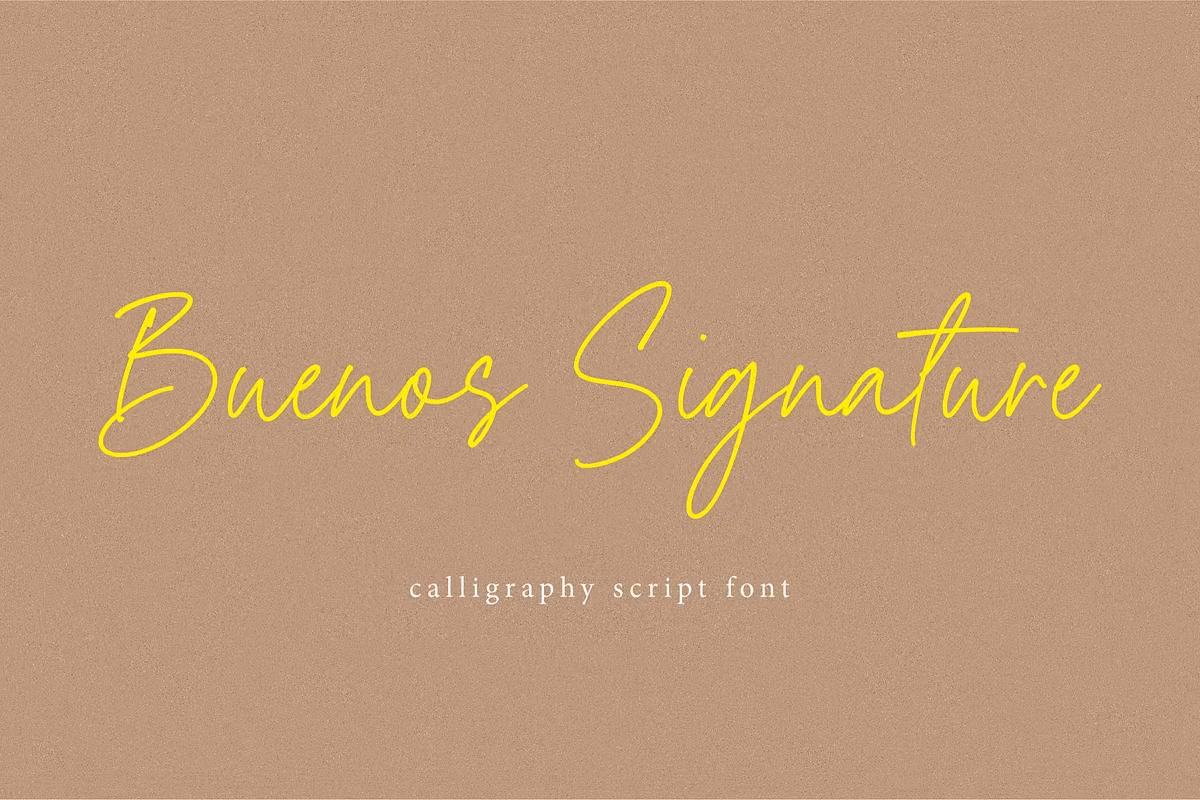
Buenos Signature Font Free Download is an elegant and flowing script typeface that emulates a natural, handwritten signature. With its smooth strokes, sophisticated loops, and stylish curves, Buenos Signature is perfect for creating personalized designs, branding, invitations, social media posts, logos, and more.
The font’s fluid and graceful style adds a touch of luxury and authenticity to any design, making it ideal for projects that require a refined, professional look with a human touch.